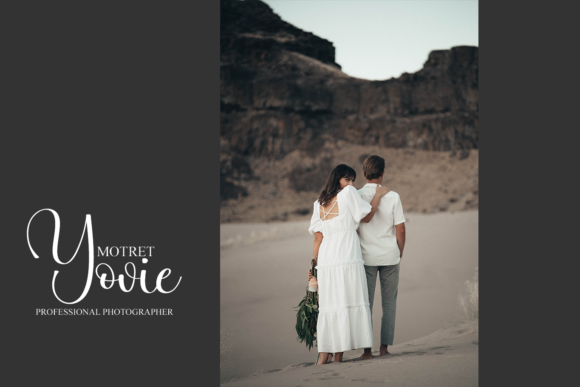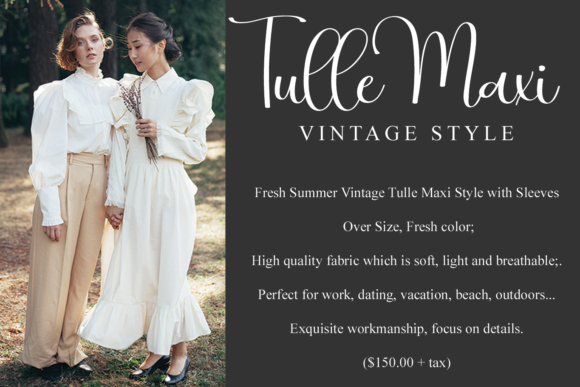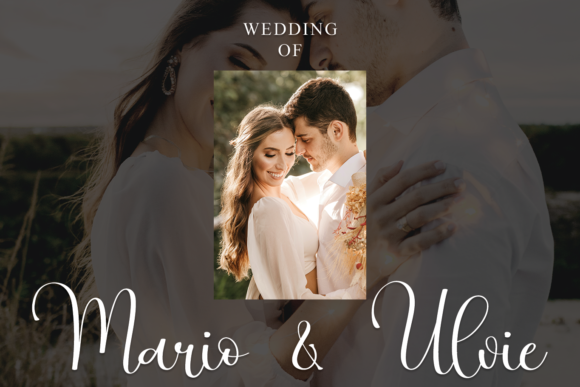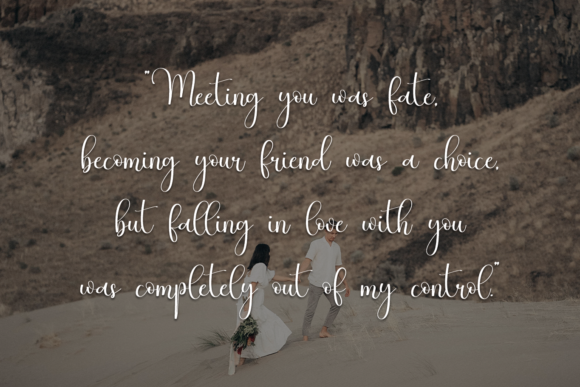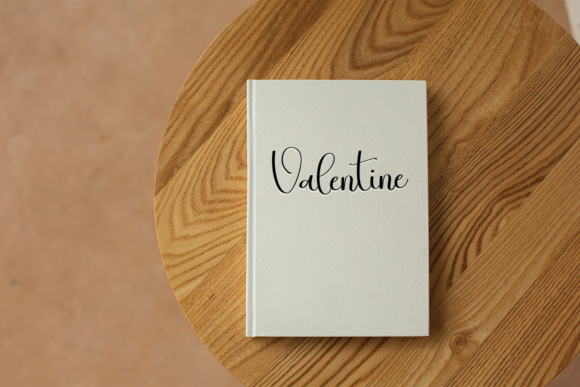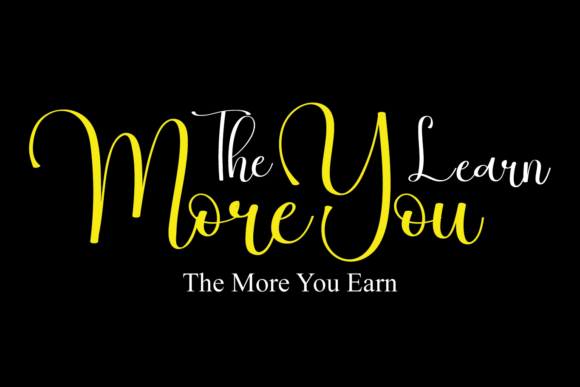
I’ll never forget the feeling of being stuck on a design project, scouring the internet for the perfect font to bring my vision to life. It was like searching for a needle in a haystack – frustrating and time-consuming. But then, I stumbled upon Beloved, an exquisite handwritten font that quickly became my go-to. In this article, I’ll share my love for Beloved, its features, and how to make the most of it in your designs.
An Honest Review of Beloved
So, what makes Beloved so special? Here are a few things I love about it:
- ✨ Classy calligraphic influences that add a touch of elegance to any project
- ✅ Contemporary and fresh feel that makes it perfect for modern designs
- 💫 Highly legible, even at small font sizes
- 🎨 Versatile and suitable for a wide range of projects, from branding to wedding invitations
Of course, no font is perfect, and Beloved has a few minor quirks:
- 🤔 Some users might find the font a bit too ornate for very casual or playful projects
- ⚠️ Limited availability of certain characters, such as ligatures and stylistic alternates (but more on that later)
One of the best things about Beloved is its support for OpenType features, including ligatures, stylistic alternates, and glyphs. Here’s how to access them:
Experiment with different features to add an extra layer of personality to your designs.
The Story Behind Beloved
Beloved was designed by a team of typographers who wanted to create a font that would bring a touch of elegance and sophistication to any project. Inspired by classic calligraphy and modern digital design, Beloved is the perfect blend of old and new.
| Is Beloved suitable for body text? | While Beloved is highly legible, it’s best suited for headlines and short paragraphs. For longer body text, consider using a serif or sans-serif font. |